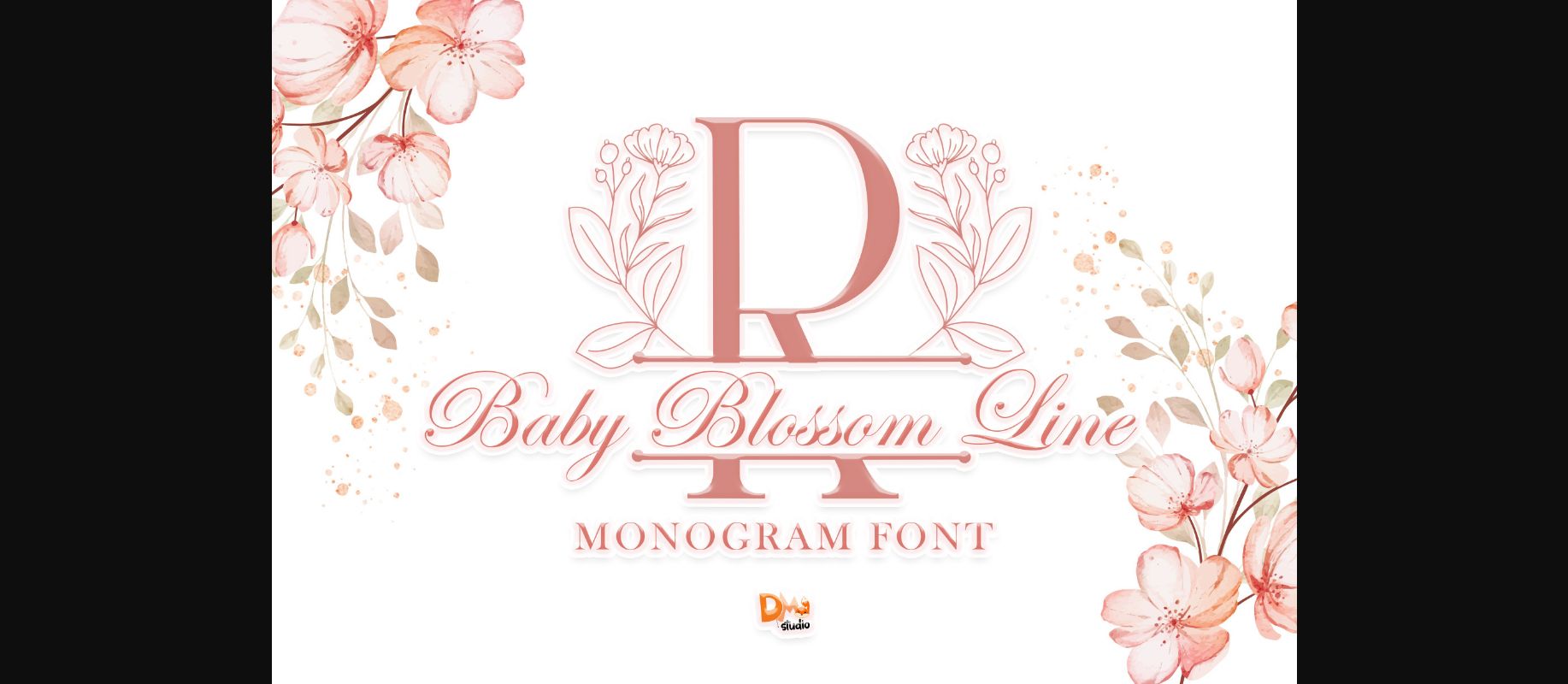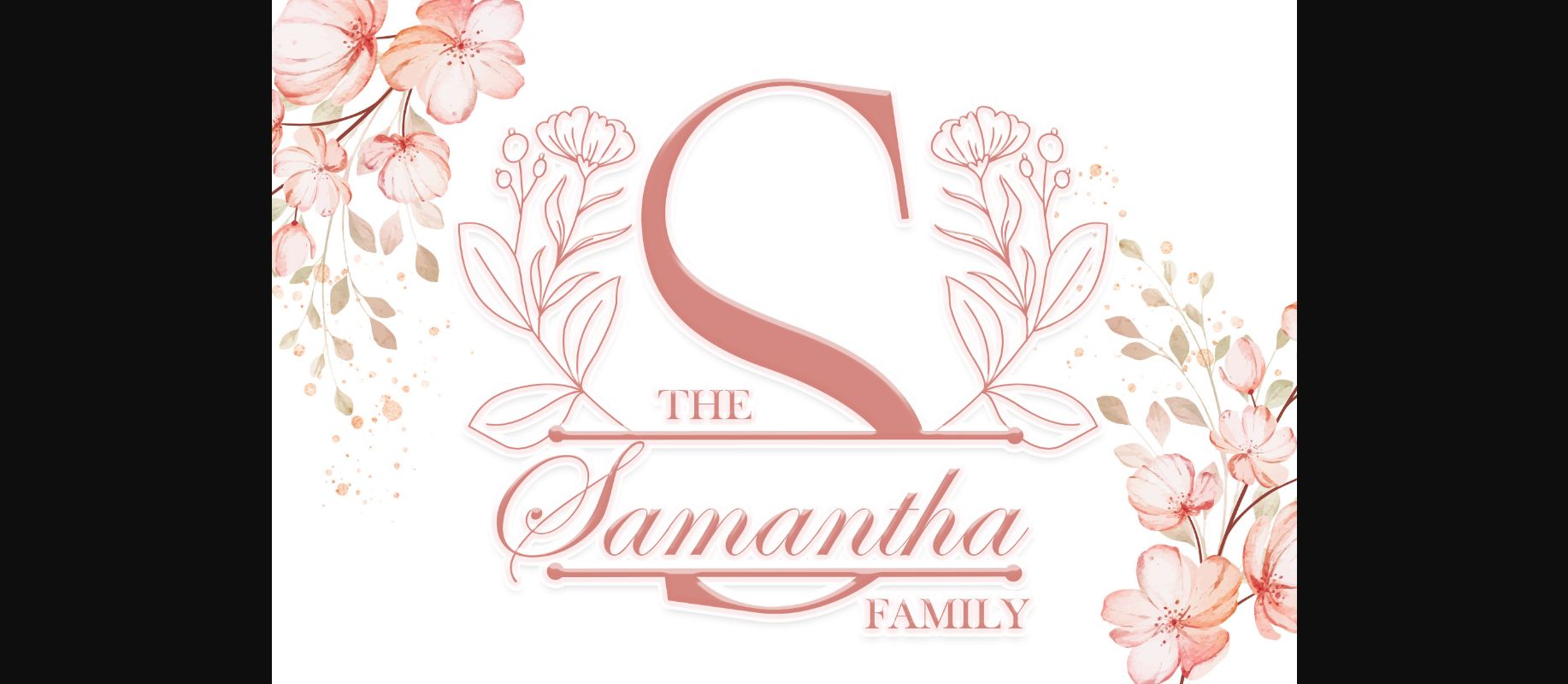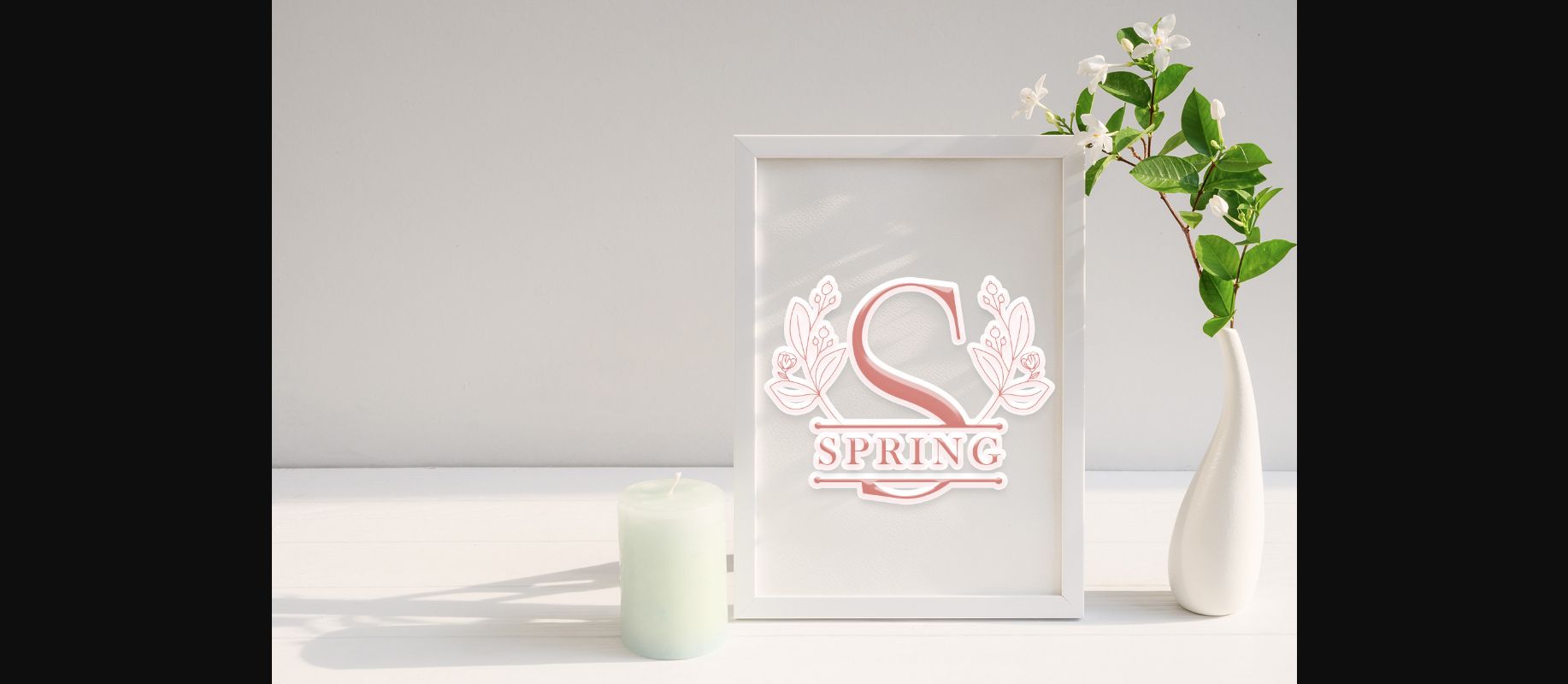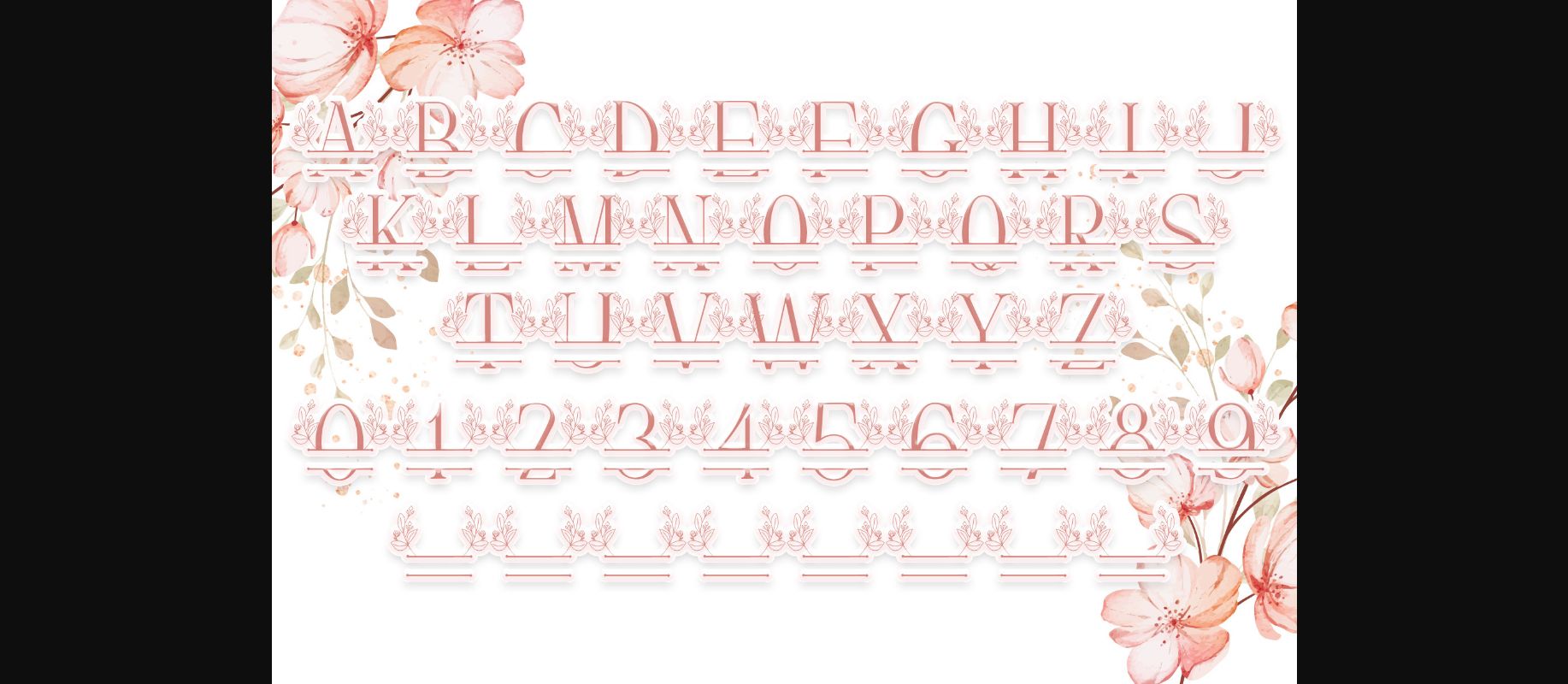
About Baby Blossom Line Font
Baby Blossom Line is a gorgeous decorative font. Combining solemn letters with cute floral wreaths, this typeface will help you create the most amazing designs!